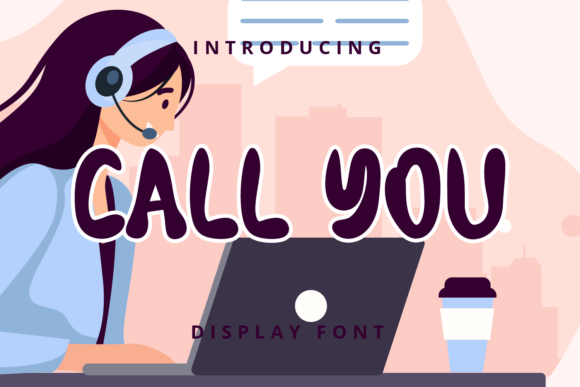
When the Right Font Makes All the Difference
Have you ever been brainstorming a creative project, and suddenly, the perfect font pops into your head? For many designers, it’s that elusive moment when everything clicks into place. For us, it’s the moment we discovered Call You Font – a trendy and friendly paint brushed display font that adds a touch of natural charm to any design.
Call You Font is designed to be versatile, effortlessly fitting into a wide range of contexts, from playful advertisements to elegant invitations. Its unique feel makes it a valuable addition to any designer’s toolkit, allowing them to add a personal touch to their work. Whether you’re a seasoned pro or just starting out, Call You Font is sure to elevate your designs and leave a lasting impression.
Key Features of “Call You Font”
- Unique Characteristics: The “Call You Font” features a distinctive, handwritten style with a mix of cursive and bold elements, making it ideal for creating attention-grabbing headings and titles.
- Kerning and Ligatures: The font includes advanced kerning and ligature pairs, ensuring smooth text flow and a professional appearance, even at small font sizes.
Call You Font Review
As a designer, I was excited to dive into the Call You Font and see what it had to offer. Here are my thoughts on this font.
- Unique design: The Call You Font has a distinct and quirky design that can add a touch of personality to any project.
- High legibility: Despite its unique design, the font remains highly legible, making it suitable for a wide range of applications.
- Limited language support: The font only includes support for a limited number of languages, which may be a concern for global brands.
- No extensive character set: The font lacks an extensive character set, which may limit its use in certain projects.
Overall, the Call You Font is a great addition to any designer’s toolkit. While it has its limitations, its unique design and high legibility make it a great choice for projects that need a touch of personality. Just be aware of its limitations before making a final decision.
For a more professional look, pair “Call You Font” with a contrasting background color or texture.
Use “Call You Font” for titles or headings to add a touch of elegance to your design.
For a creative touch, use “Call You Font” for bullet points or subheadings.
“Call You Font” is perfect for:
- Photography captions and quotes
Remember to experiment with different font sizes, colors, and combinations to get the most out of “Call You Font”.